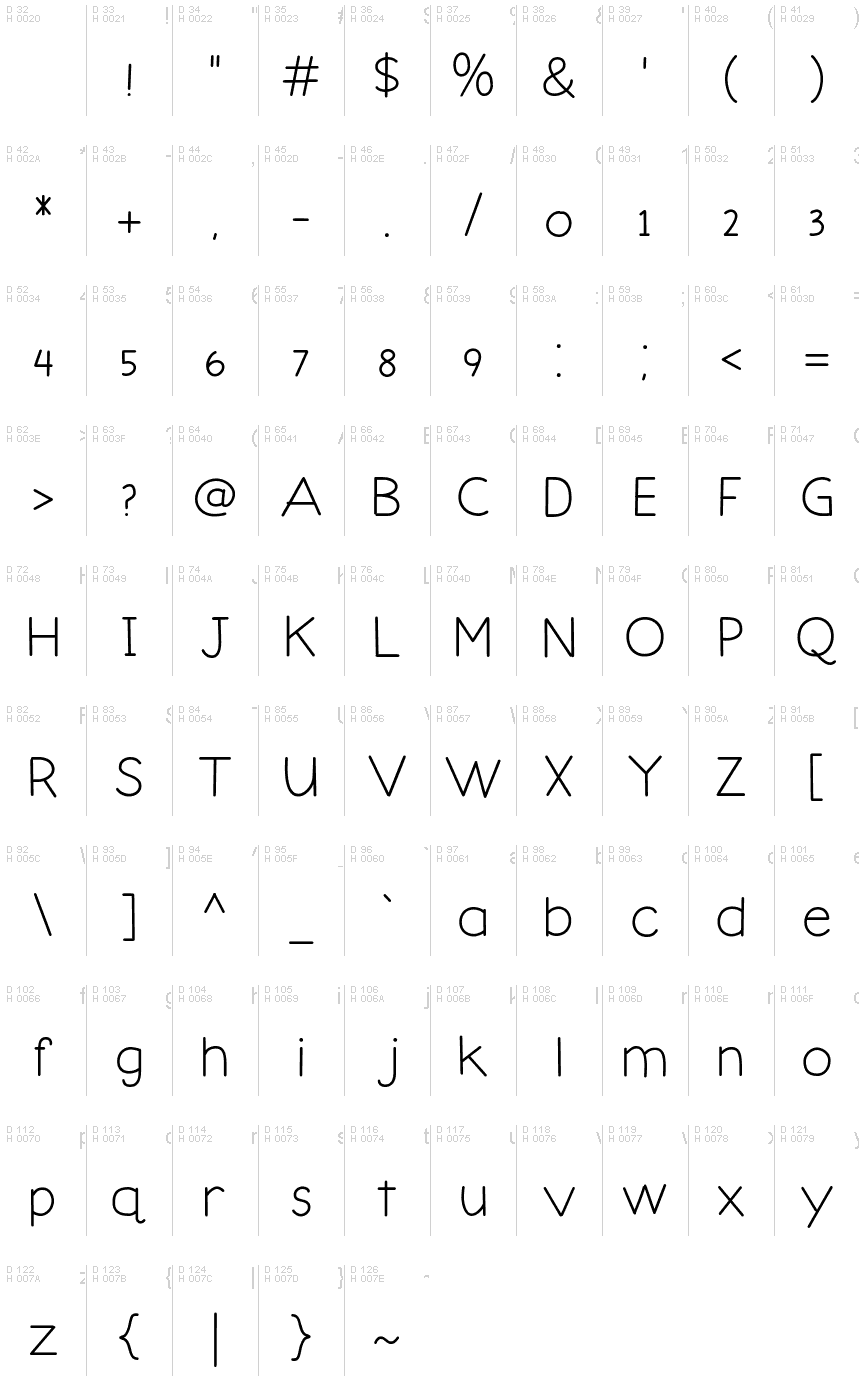
Claria
Meet Claria, the sleek and modern sans serif font designed by Brithos Type. With its light weight, Claria is perfect for projects that require a subtle touch of sophistication. Its clean lines and minimalist design make it suitable for a variety of applications, from website headers to business cards. Use Claria as your go-to font for anything that needs a touch of elegance, such as wedding invitations or high-end fashion branding. This versatile typeface is guaranteed to elevate any project with its timeless appeal and refined style. Try it out on your next project and see how Claria can transform your designs!